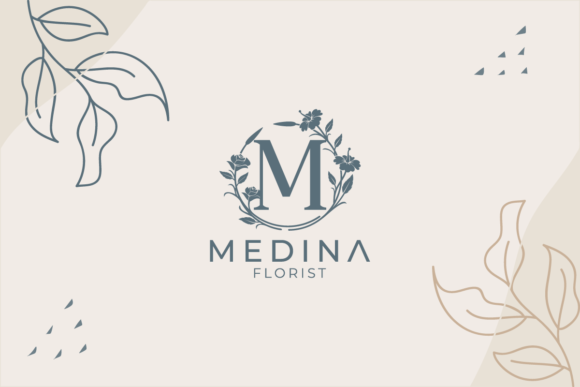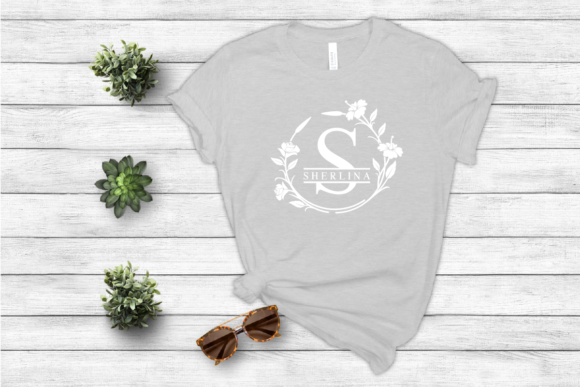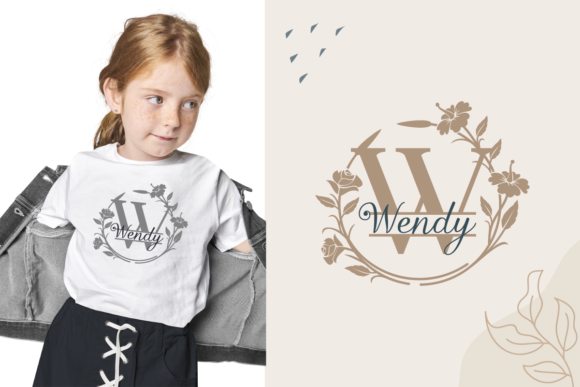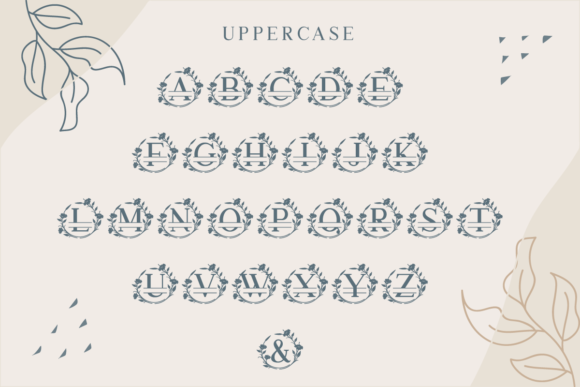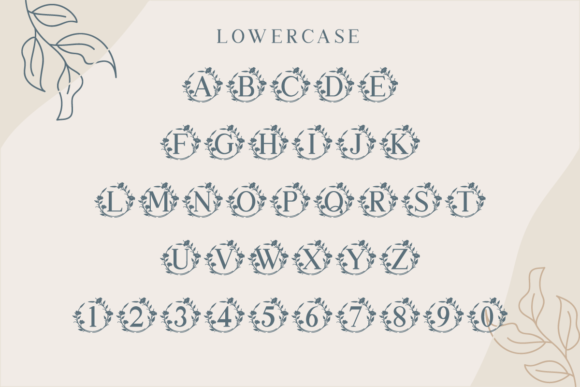
Introduction to Kembang Monogram Font
Kembang Monogram Font is a lovely and charming font, made with love in every curve.
Fall for its ravishing style and use it to create gorgeous invitations, beautiful stationary art, eye-catching social media posts, and much more .
Key Features of Kembang Monogram Font
Why Choose Kembang Monogram Font?